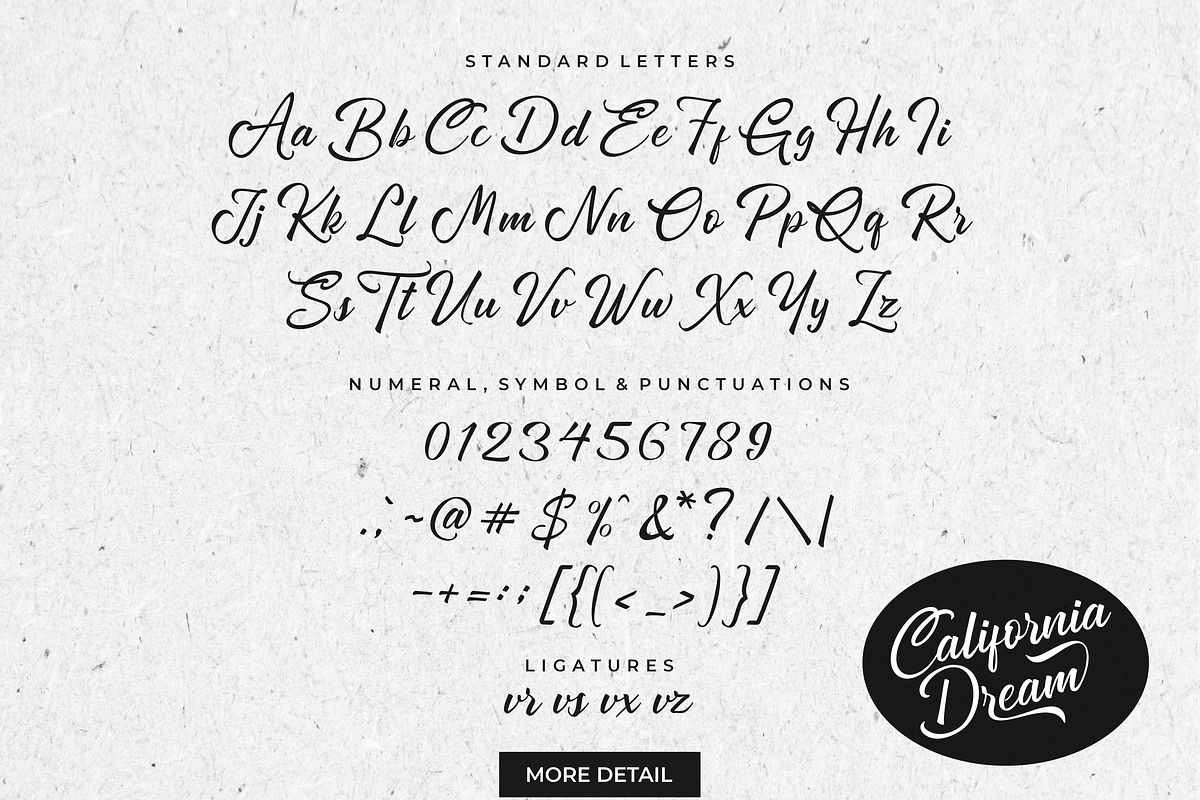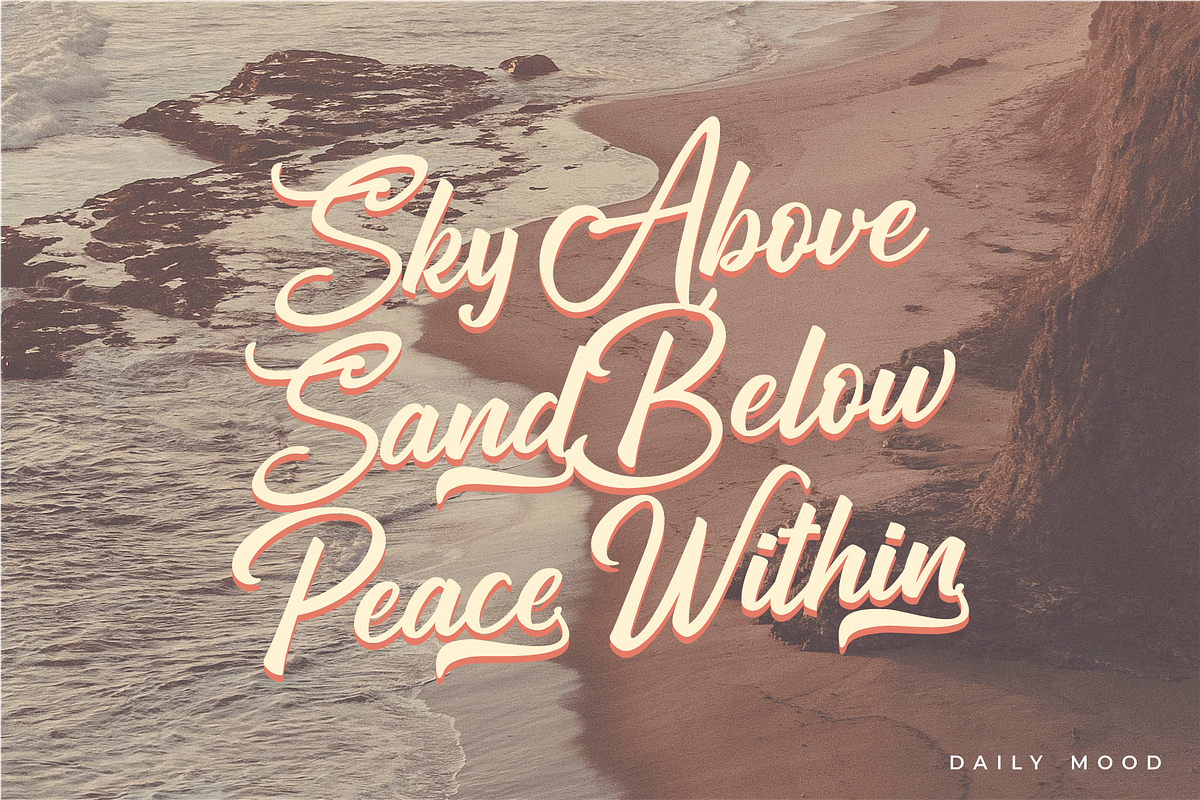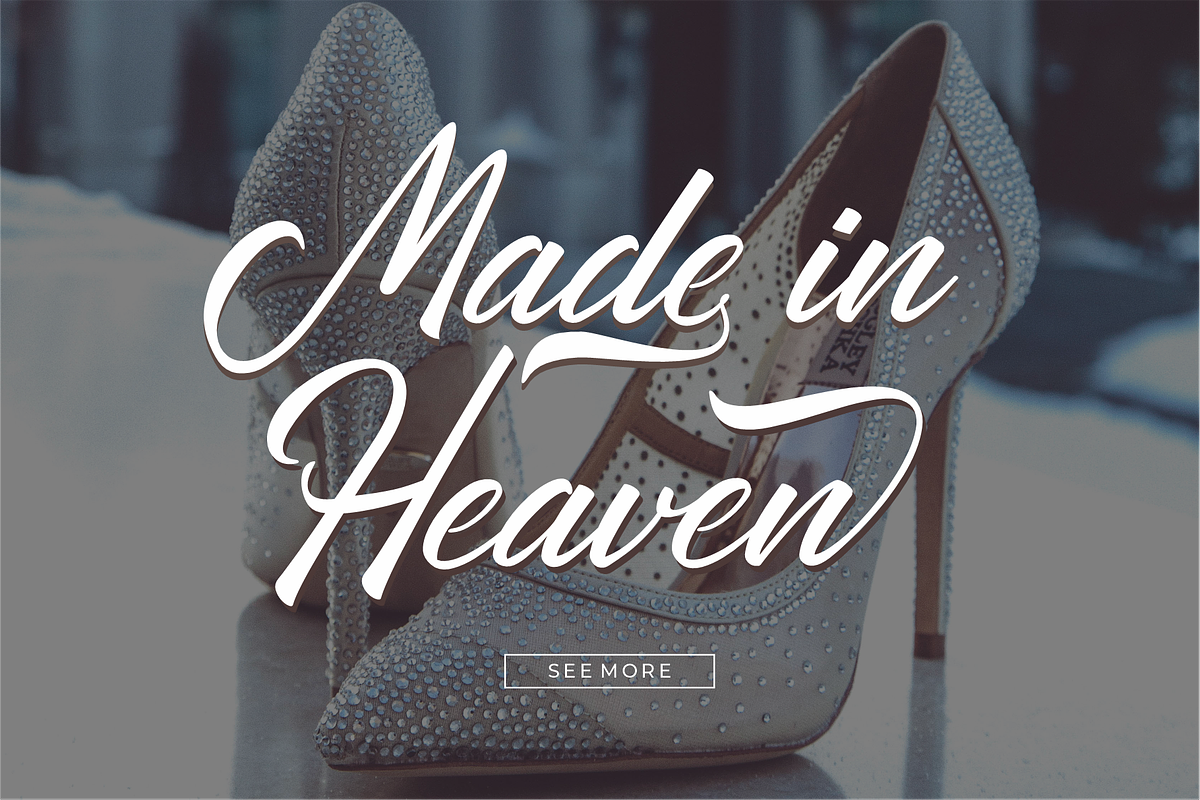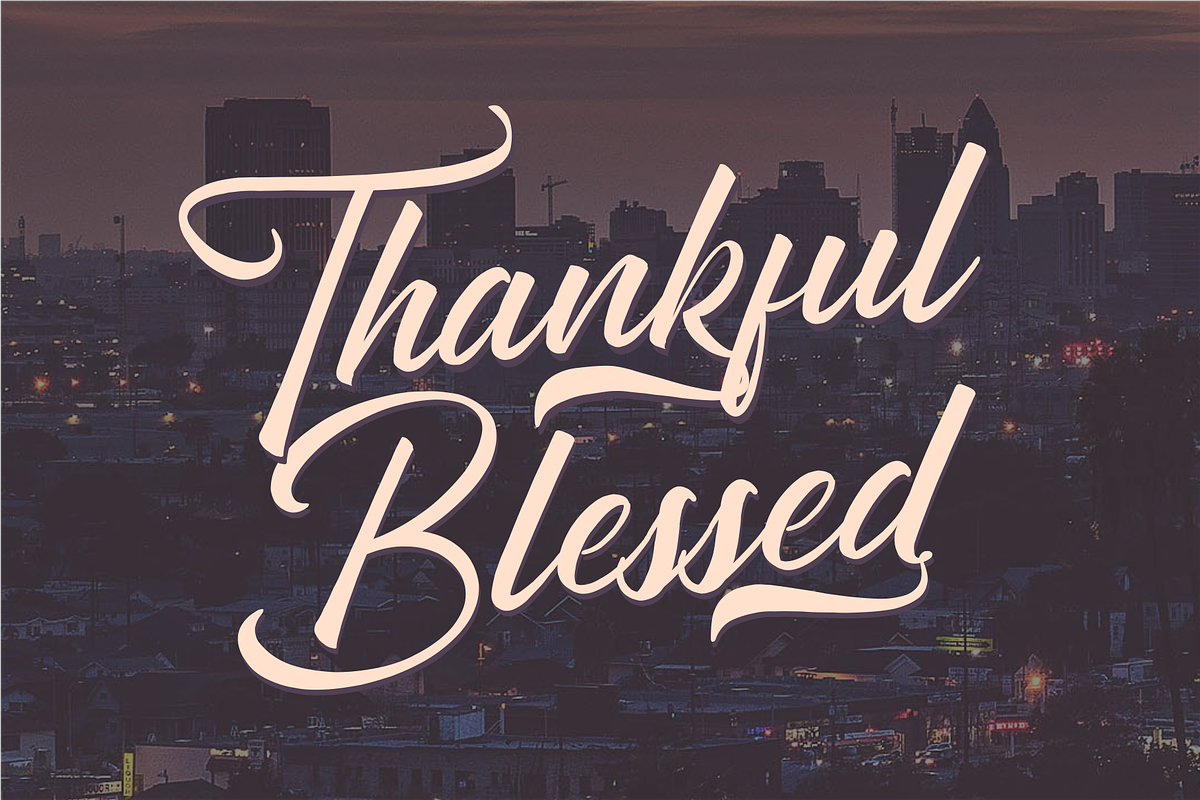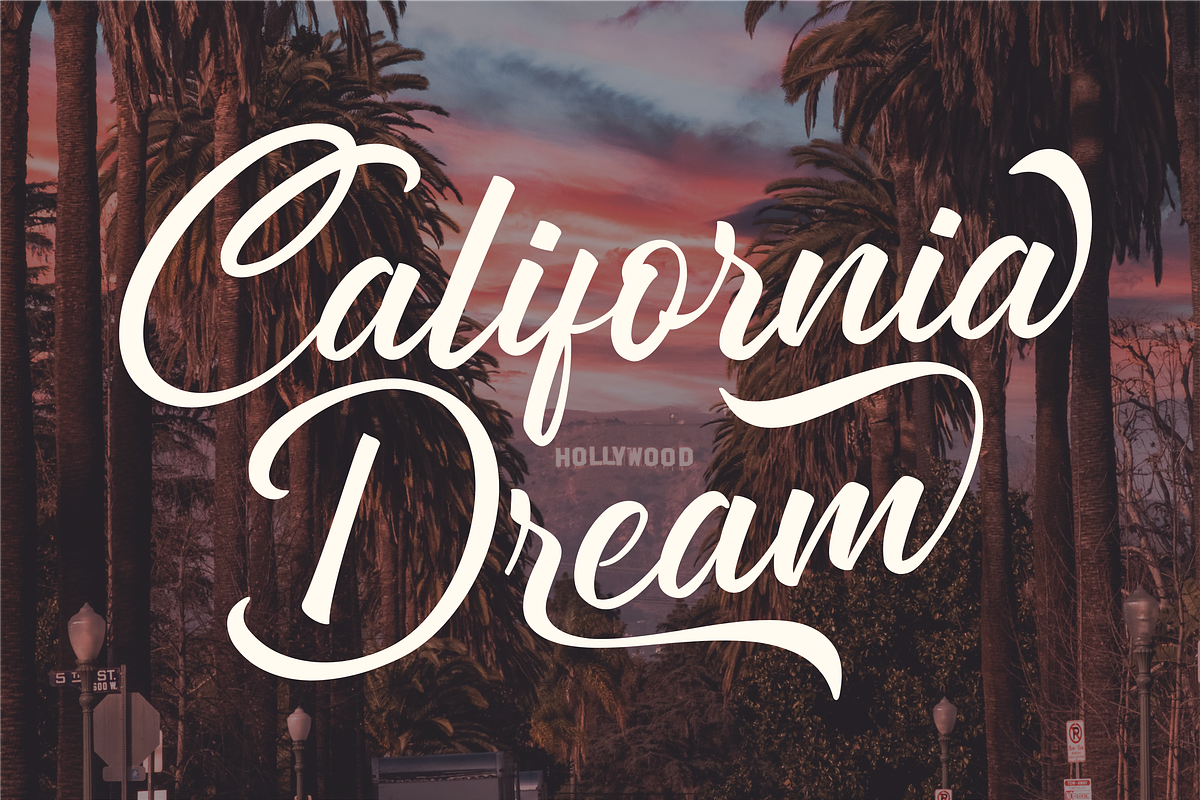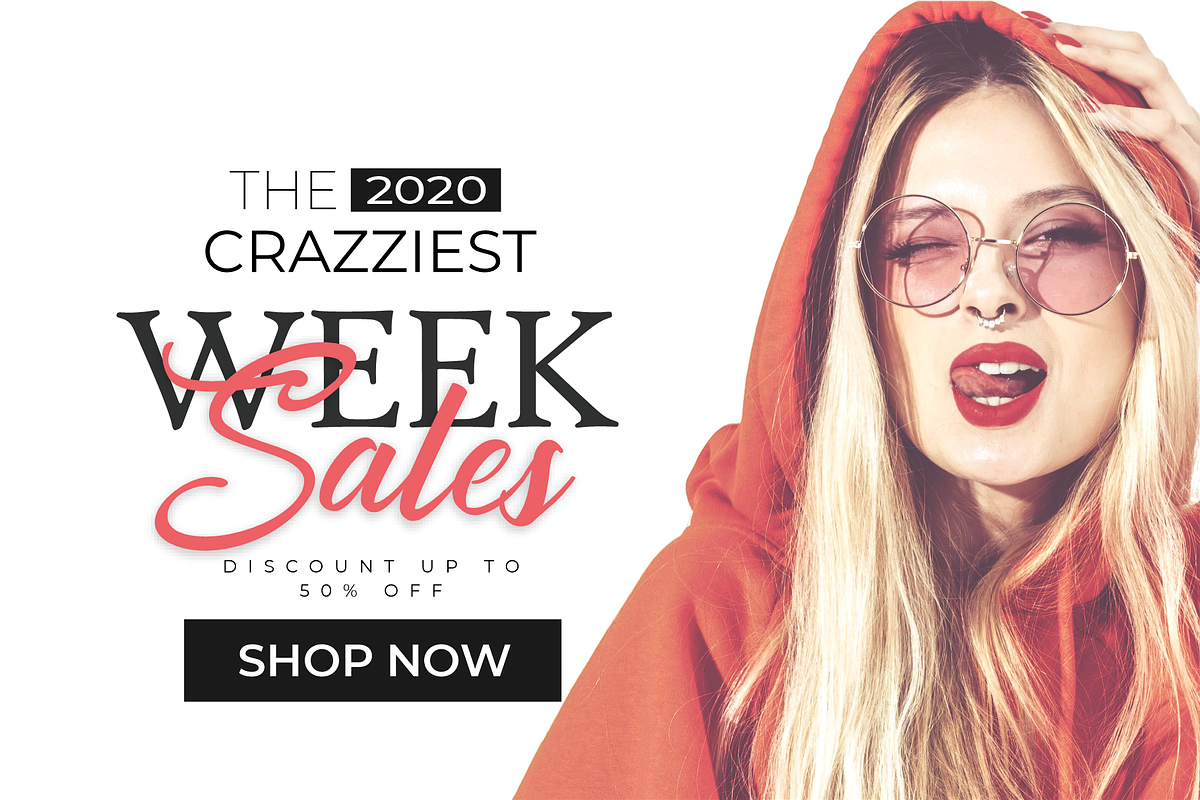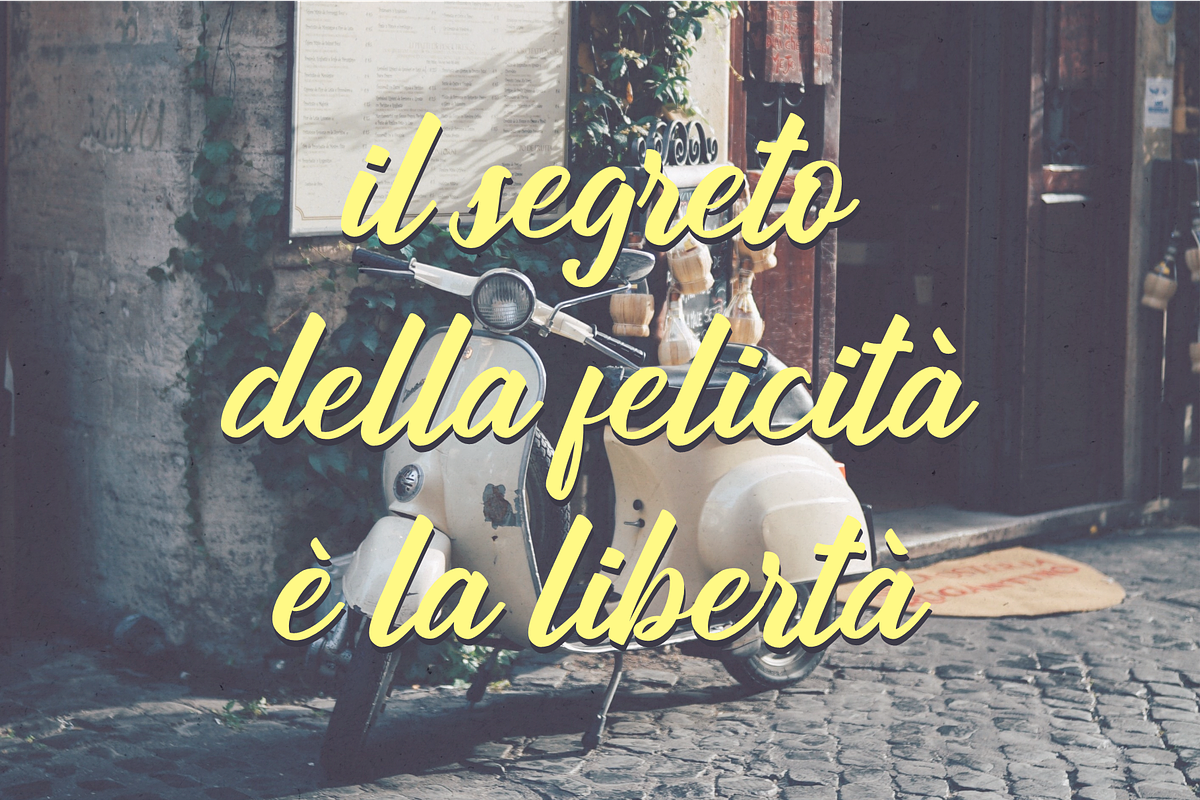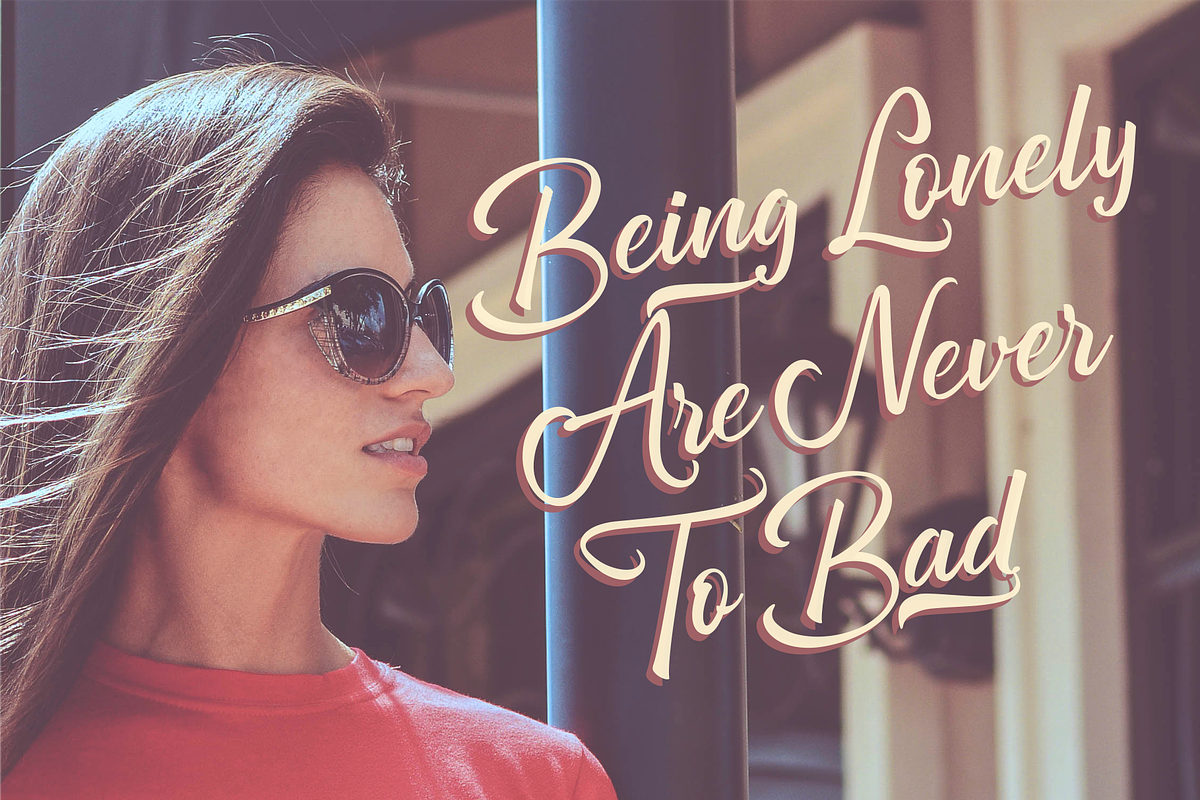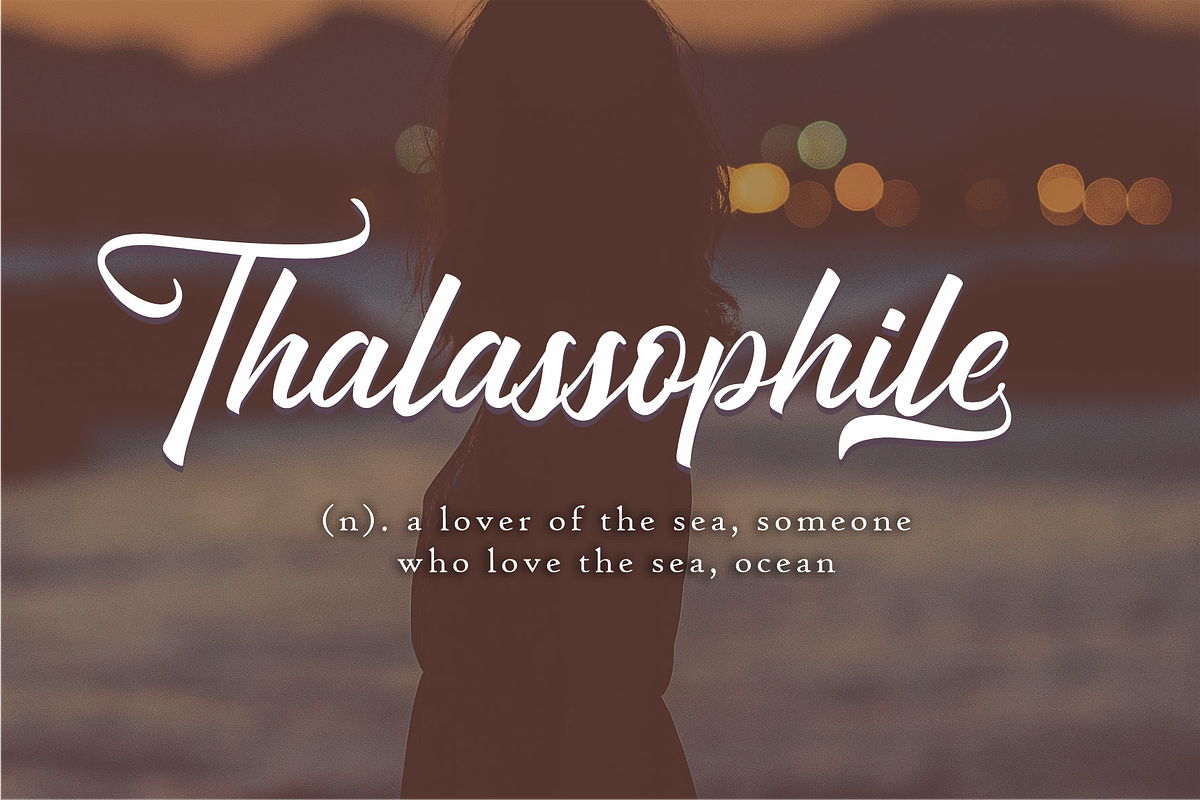
California Dream Brush Fonts
California Dream is a stylish brush fonts that comes to help you create your various graphic projects. These fonts give you a dynamic, strong look & easy to read with a modern twist.
California Dream is perfect for overlay text marketing, logos & branding, photography, invitations, watermarks, advertisements, product designs, stationery, wedding designs, labels, product packaging, or anything that requires bold content.
- California Dream Slant
- California Dream Bold
- California Dream Bold Slant